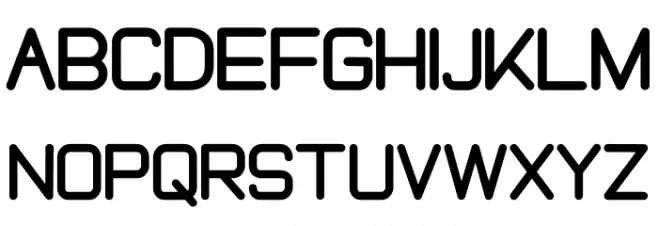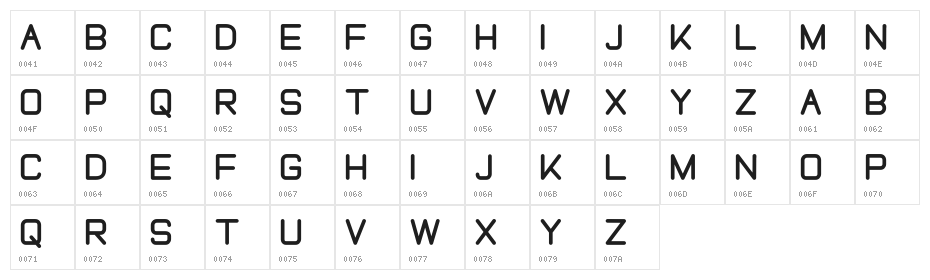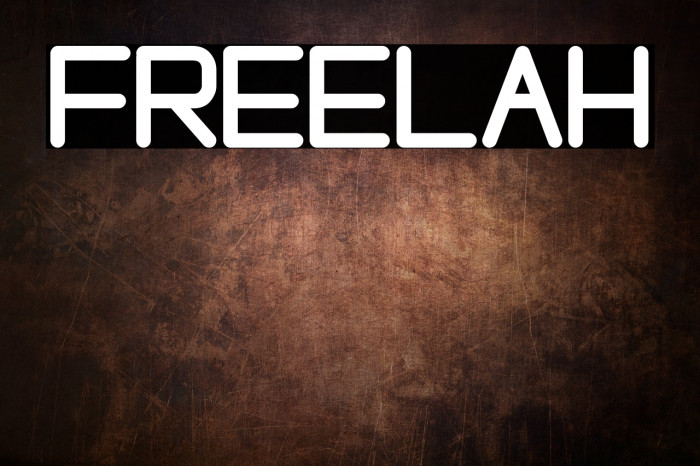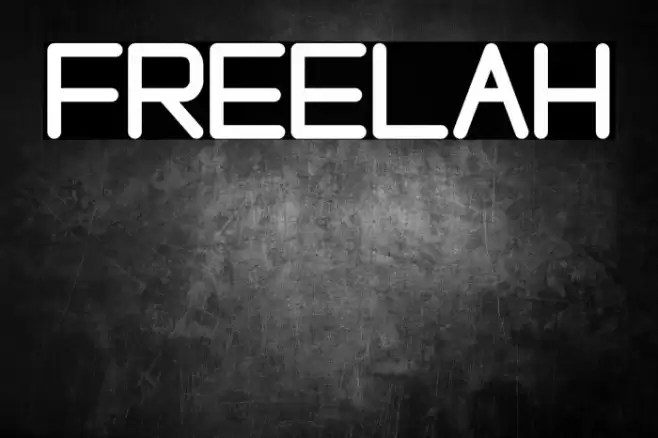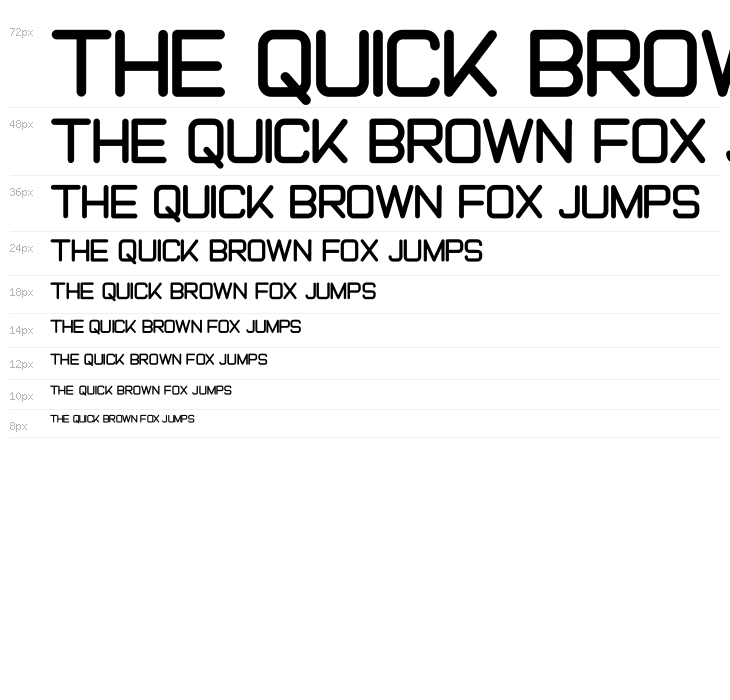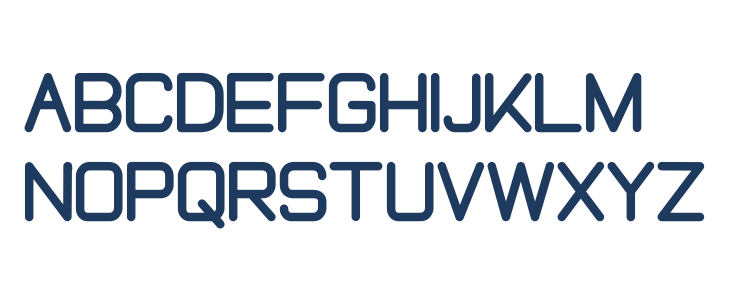
FREELAH Font
FREELAH Description
This font features a modern, geometric sans-serif style with rounded edges that give it a friendly and approachable appearance. The uniform stroke width and clean lines provide a sense of clarity and simplicity, making it highly legible. Its design is consistent across all characters, maintaining a balanced and cohesive look. The rounded corners soften the overall feel, adding a touch of warmth to the otherwise sleek and contemporary design. This font is versatile, suitable for both digital and print media, and can be used effectively in various design contexts.
Use CaseHeadlines, Body text, Logos
Proposed ProjectsIdeal for branding, web design, advertising, and user interfaces due to its clarity and modern appeal.